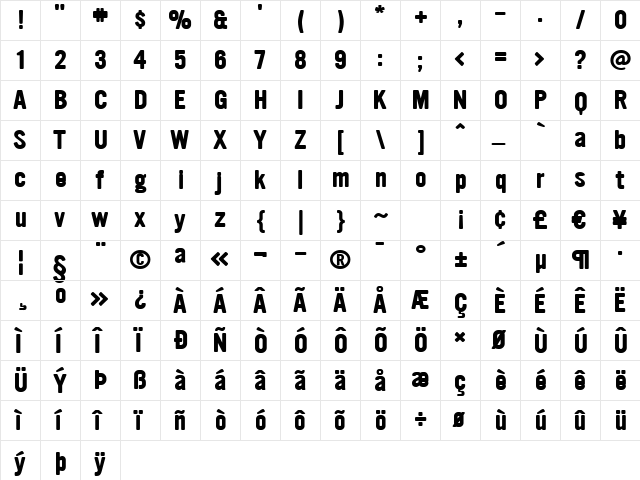
Ultramagnetic Bold
| Foundry | YouWorkForThem |
| Designer | Michael Cina |
Design Context for Ultramagnetic Typeface
Ultramagnetic is a composed and adaptable typeface that performs quietly and consistently across a wide range of design contexts. The heavy weight commands attention and anchors typographic hierarchies.